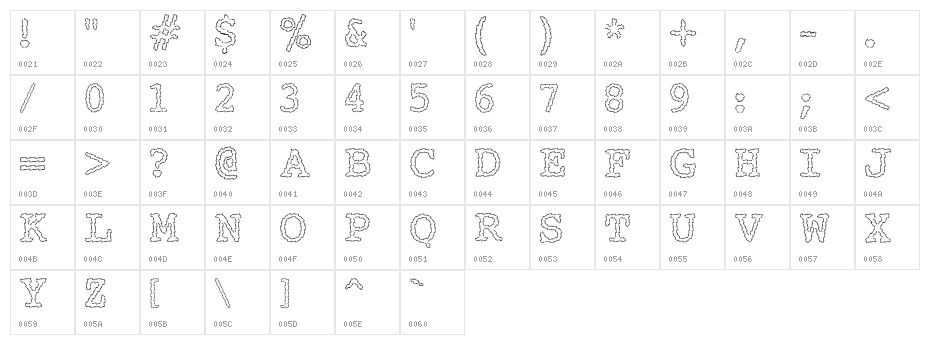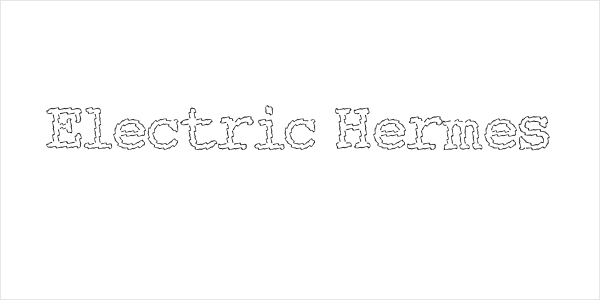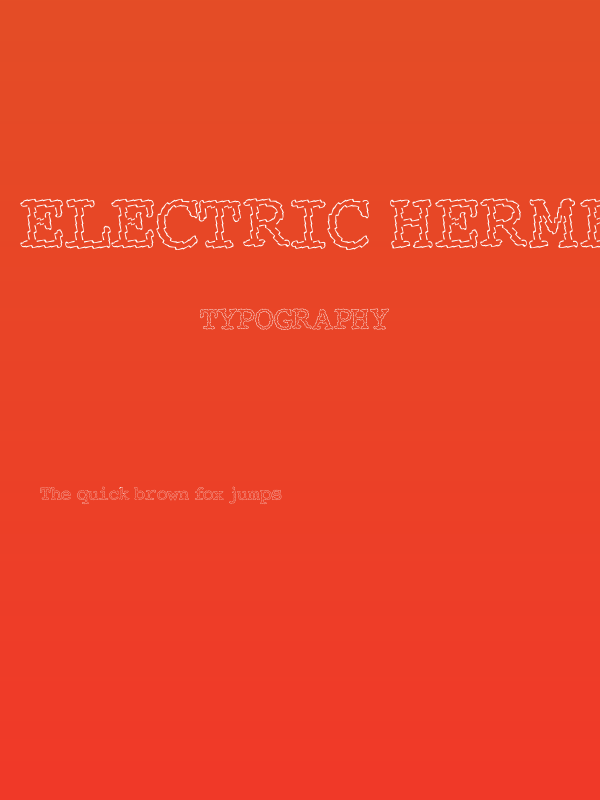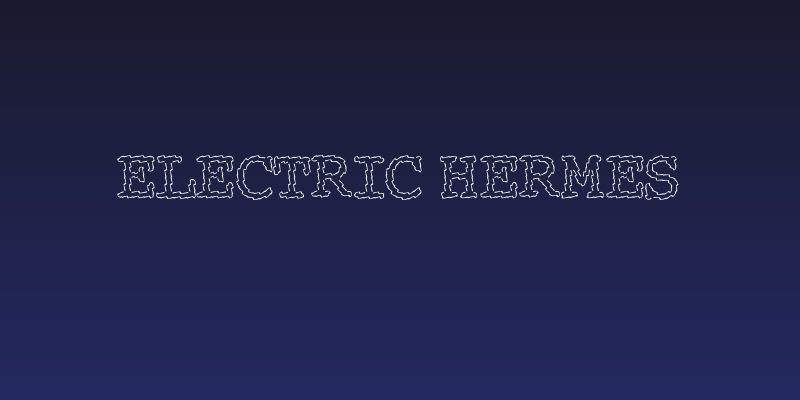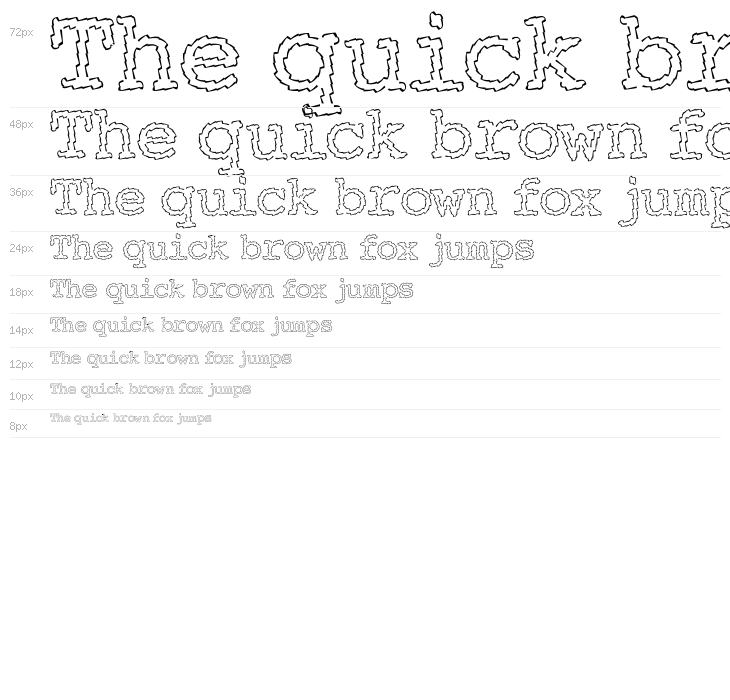
Electric Hermes Font
Electric Hermes Description
This font features a unique, jagged outline that gives it an electrifying and dynamic appearance. The characters are bold and have a playful, almost cartoonish style, making them stand out with their irregular, zigzag edges. The uppercase and lowercase letters maintain a consistent style, with the numbers and special characters following suit. This font's distinct design is eye-catching and memorable, perfect for projects that require a touch of creativity and fun. The overall look is both modern and whimsical, suitable for a variety of artistic applications.
Overall StyleModern, Whimsical
Proposed ProjectsIdeal for posters, children's book covers, comic titles, and creative branding.